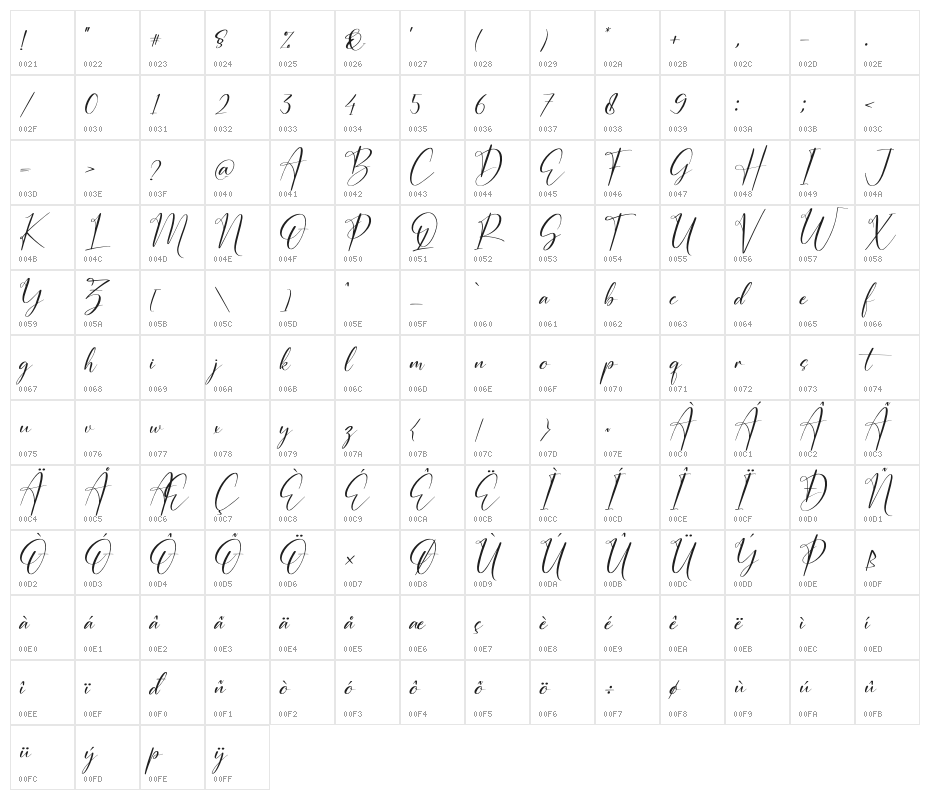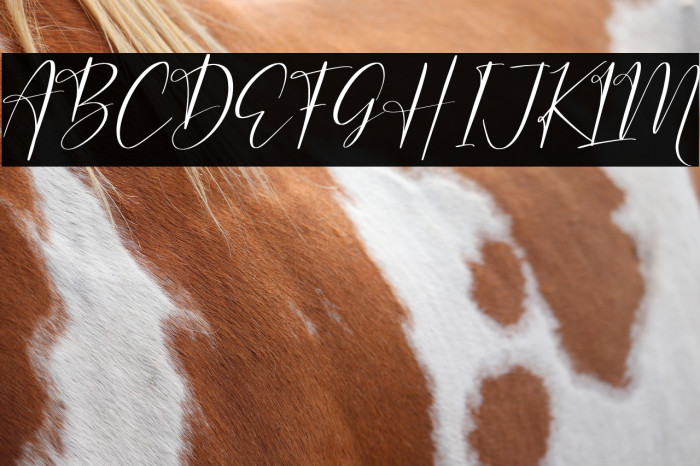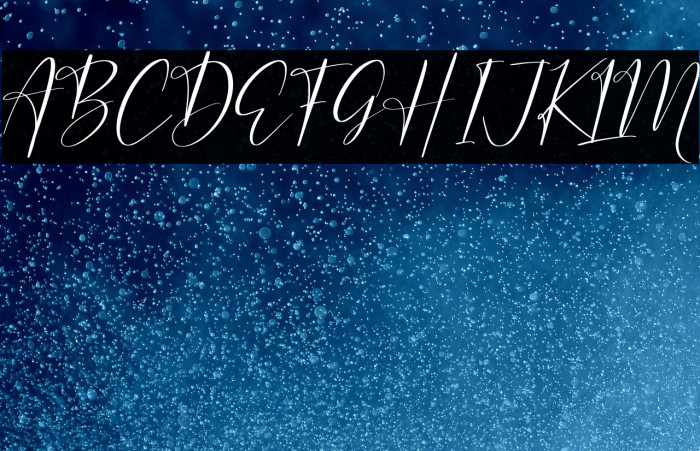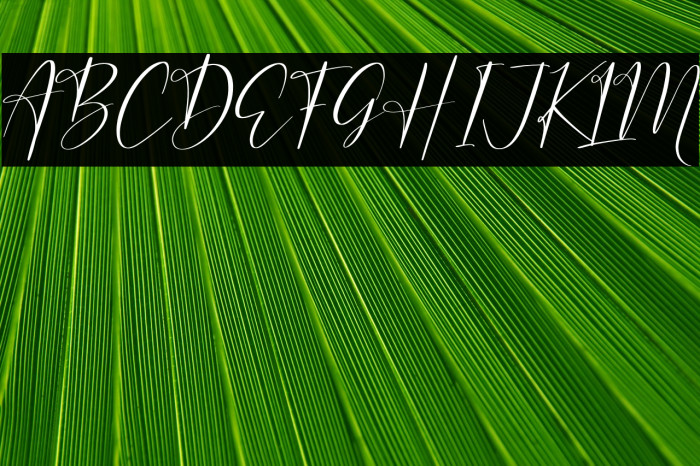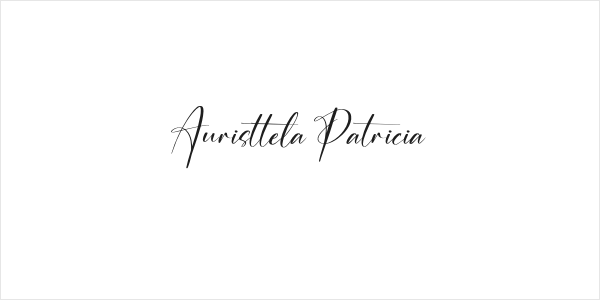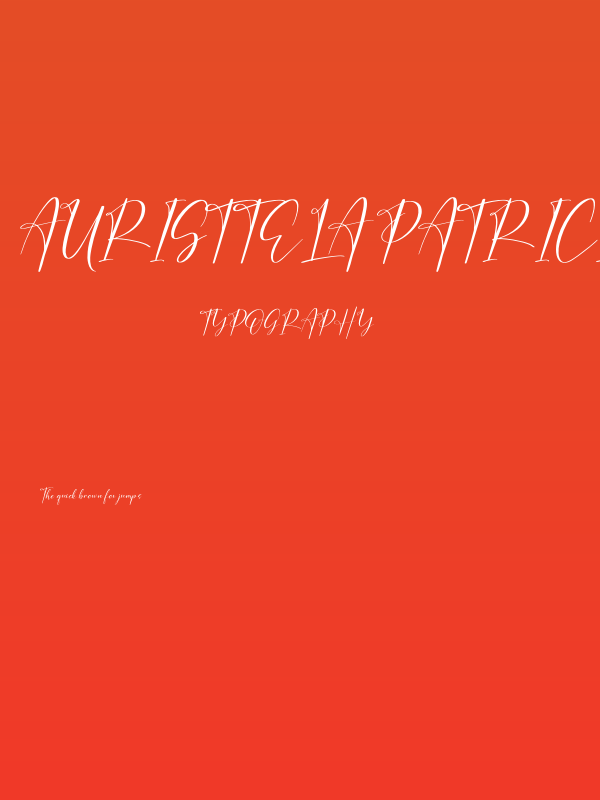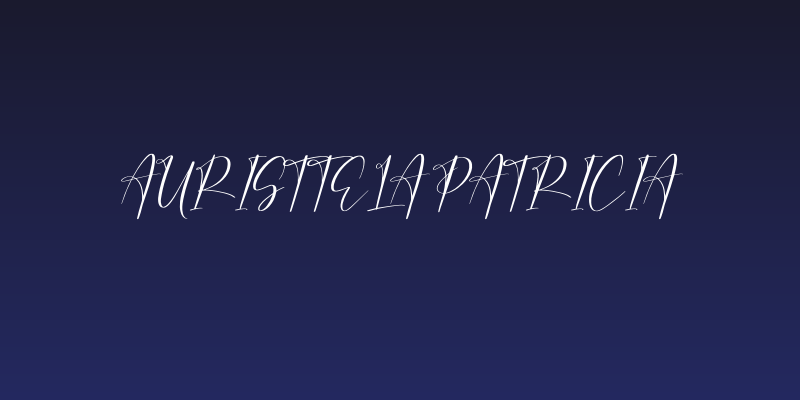
Auristtela Patricia Font
Auristtela Patricia Description
This elegant script font features a flowing, cursive style with high contrast between thick and thin strokes. The uppercase letters are characterized by their tall, graceful forms and sweeping curves, while the lowercase letters maintain a consistent fluidity and rhythm. The numerals are designed to complement the letters, with a similar emphasis on elegance and readability. Special characters are thoughtfully integrated, maintaining the overall aesthetic. This font exudes sophistication and charm, making it ideal for formal invitations, branding, and decorative purposes.
| Overall Style | Elegant, Decorative |
| Use Case | Headlines, Invitations, Branding |
| Proposed Projects | Ideal for wedding invitations, luxury branding, greeting cards, and decorative signage. |